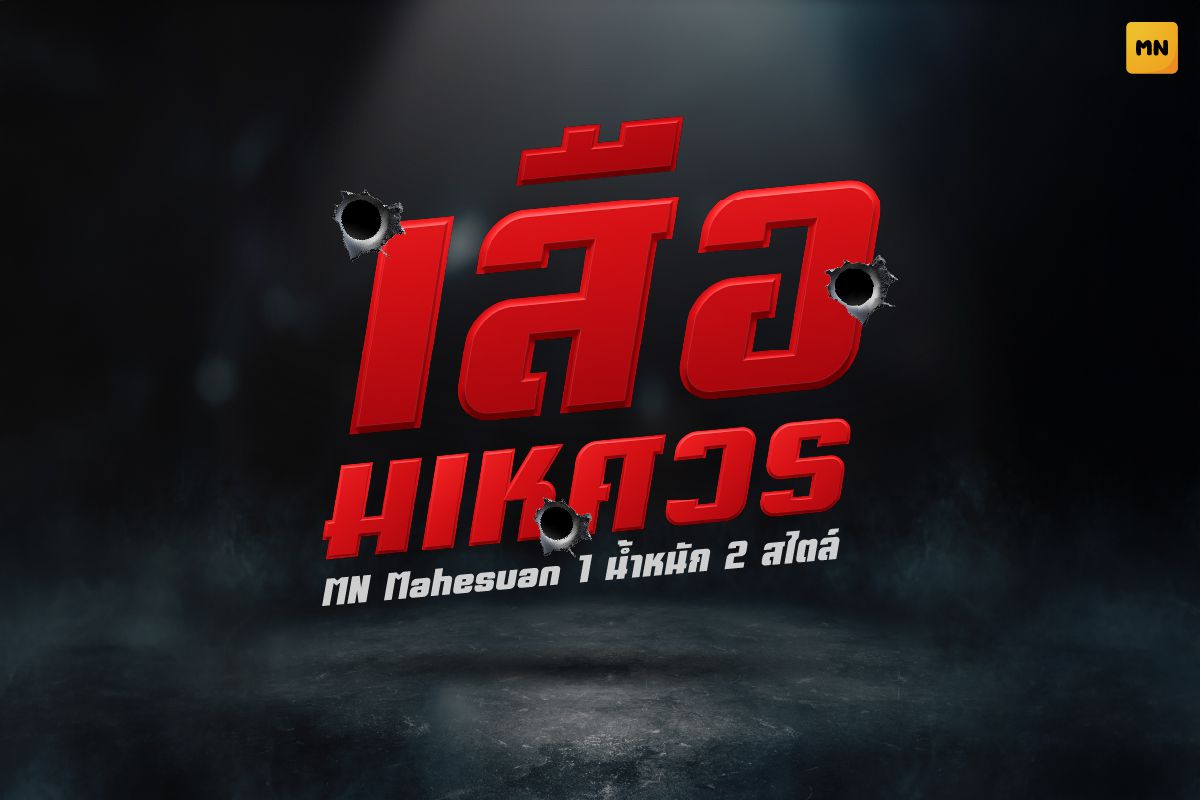
MN Mahesuan Italic
A bold and powerful Thai display font with strong geometric edges and sharp corners. It conveys energy, confidence, and intensity—ideal for action movie posters, games, or impactful headlines.